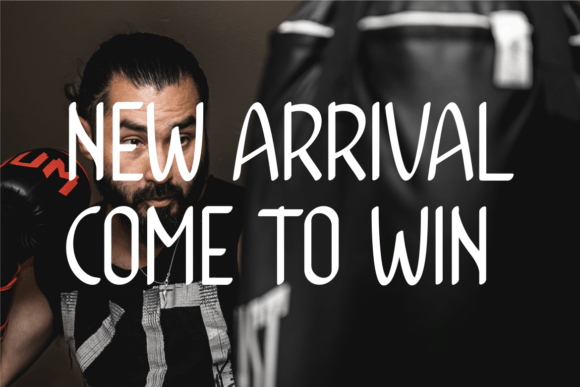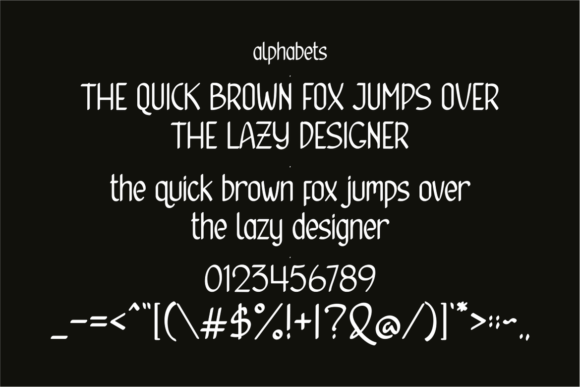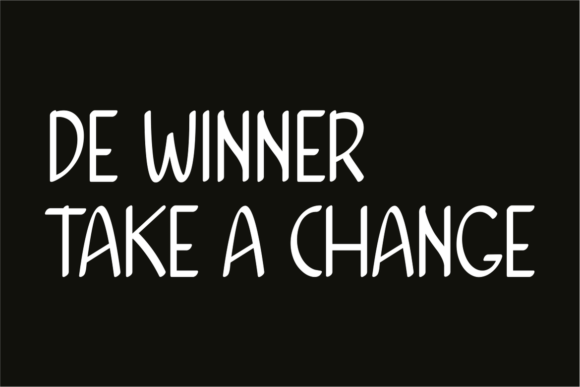
Introduction to Nervindra Pro Font
Nervindra is an adrenaline font filled with a victorious spirit.
This font can be used for something adrenaline-pumping like martial arts competitions, extreme sports, or activities that reflect courage You can relate this to activities that refer to the state of health in sports, self-defense techniques, or hiking.